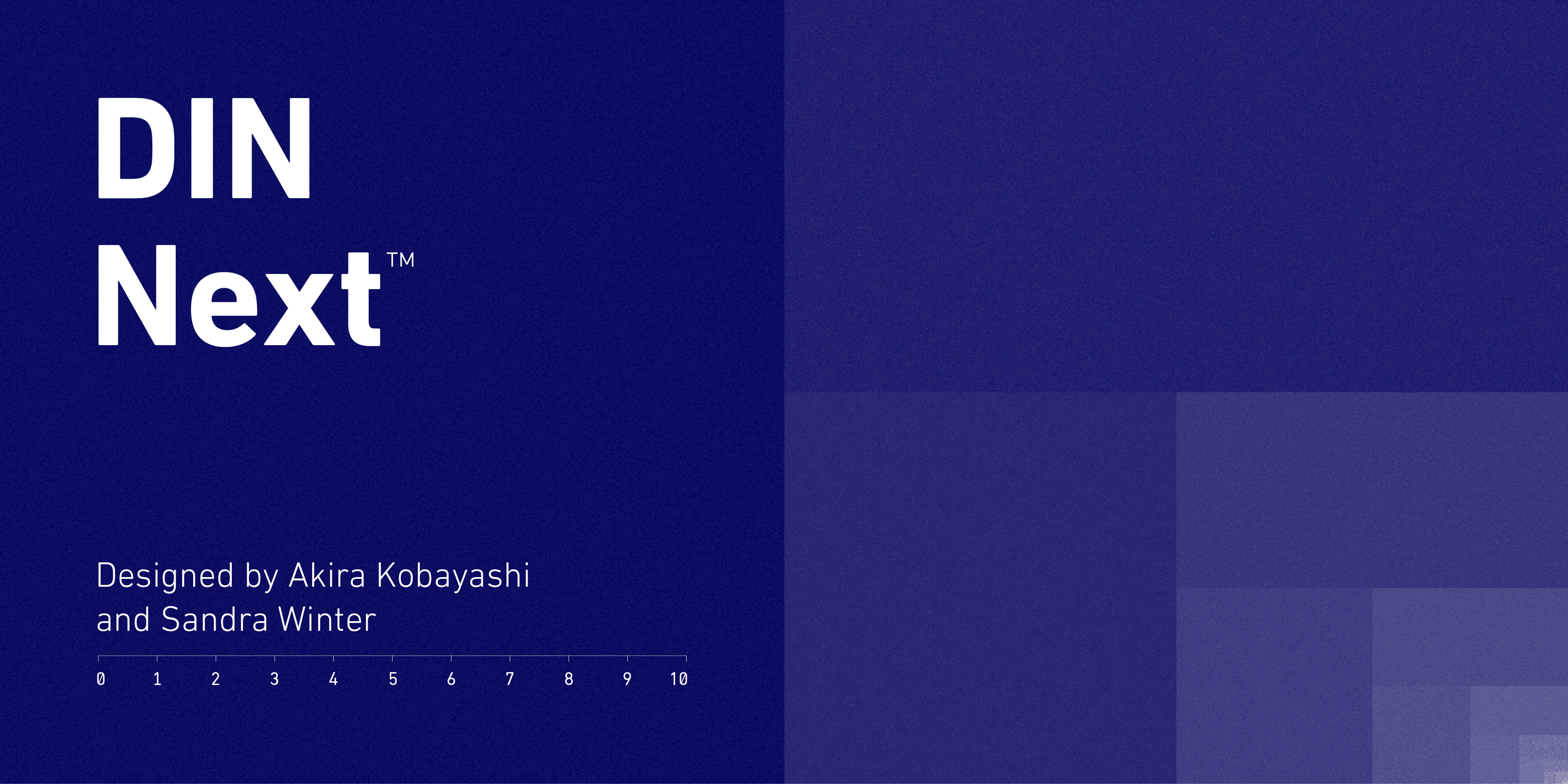
DIN Next Font is a globally recognized and incredibly versatile sans-serif typeface, celebrated for its exceptional clarity, modern efficiency, and robust functionality. This powerhouse font is perfectly suited for a vast array of professional and contemporary applications. Imagine DIN Next Font providing crystal-clear legibility for transportation signage, enhancing user interfaces for digital dashboards, or adding a precise and authoritative touch to corporate branding and annual reports. It excels in web design, mobile applications, and extensive information systems where readability across various sizes and platforms is paramount. Its strong geometric structure and unadorned forms also make it an excellent choice for technical documentation, architectural plans, and international marketing campaigns, ensuring your message is conveyed with undeniable precision and universal appeal.
What makes DIN Next Font so exciting is its remarkable evolution from the classic German industrial standard, bringing it fully into the 21st century while retaining its core strengths. It projects an aura of unwavering reliability, modern efficiency, and structured clarity, making it an excellent choice for businesses and designers who demand a no-nonsense yet sophisticated typographic solution. This font truly performs as a versatile workhorse, offering both aesthetic integrity and robust functionality that can elevate any project, from complex data visualization to sleek product packaging. Its optimized letterforms ensure readability even in demanding environments and high-density text.
DIN Next Font typically boasts an incredibly comprehensive and expansive family, providing designers with unparalleled flexibility for any project imaginable. You can expect a vast array of weights, ranging from an ethereal ultralight to a commanding black, along with corresponding italic styles. Many DIN Next Font families also include condensed, compressed, and extended versions, as well as multiple numeral styles, small caps, and a wealth of comprehensive OpenType features. This rich selection ensures that DIN Next Font can seamlessly handle virtually any typographic challenge, allowing for harmonious visual hierarchies and consistent branding across all your projects, from prominent headlines to detailed body text and intricate data tables.